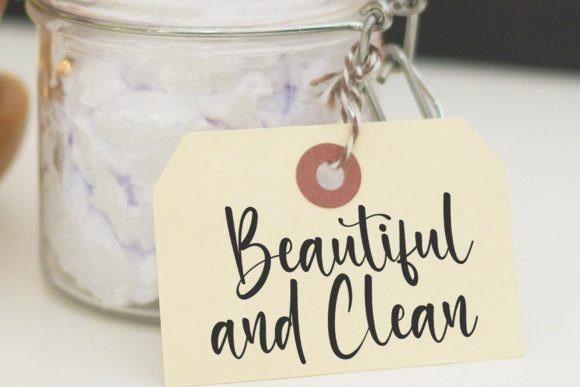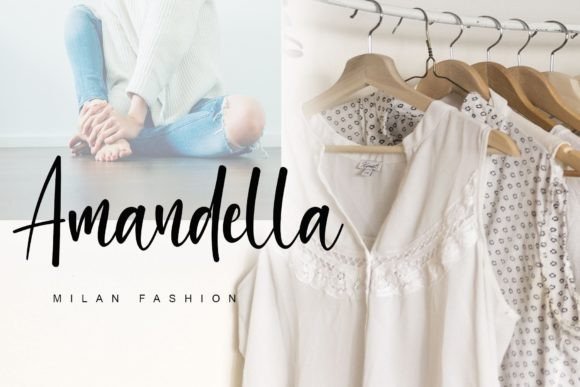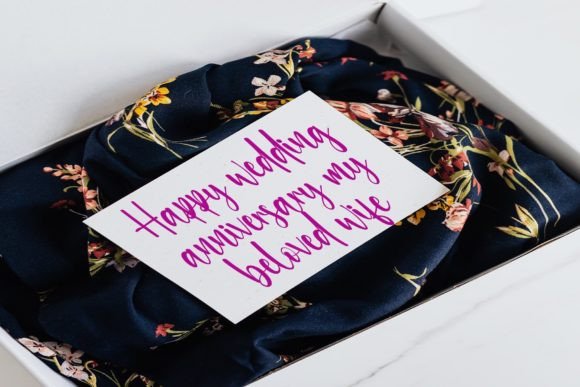
Introduction to Massemy Font
As a designer, you’ve probably found yourself stuck on a project, unable to find the perfect font to bring your creative vision to life. But what if I told you that there’s a font that can elevate your designs to the next level? Introducing the Massemy Font, a stunning handwritten font that combines timeless classic calligraphy with a modern twist.
Imagine having a design resource that not only adds a touch of elegance to your projects but also provides a high-quality, versatile font that can be used across various mediums. With the Massemy Font, you can achieve just that. Its impeccable form and balanced design make it the perfect addition to any creative project, whether you’re working on a logo, brochure, or website.
Key Features of Massemy Font
- High-quality design with a unique, creative style suitable for various design projects.
- Includes a wide range of characters, including uppercase and lowercase letters, numbers, and special symbols.
- Designed with high-resolution clarity, suitable for use in print and digital media.
- Perfect for creative projects, such as logos, typography-based art, and editorial design.
Honest Review: Massemy Font
As a designer, I’m always on the lookout for high-quality design resources to elevate my creative projects. Recently, I stumbled upon the Massemy Font, and I’m excited to share my honest review with you.
- Unique design style: The Massemy Font boasts a distinctive and modern aesthetic that’s perfect for creative projects that require a touch of sophistication.
- High-quality characters: The font is well-designed, with clear and crisp characters that are easy to read, even at small sizes.
- Limited language support: The Massemy Font is available in a limited range of languages, which may be a drawback for designers working on international projects.
Overall, the Massemy Font is a solid design resource that’s perfect for creative projects that require a modern and sophisticated look. While it has some limitations, its unique design style and high-quality characters make it a worthwhile addition to any designer’s toolkit.
Tips for Getting the Most Out of Massemy Font
Use the Massemy Font on a transparent background to create a clean and modern design. Experiment with different font sizes and styles to add visual interest to your design. You can also pair the Massemy Font with other design resources to create a unique and creative project.
The Massemy Font is perfect for designers looking for a high-quality, free download font to use in their creative projects. It’s ideal for social media graphics, presentations, documents, and more. With its transparent background and clean design, the Massemy Font is a great addition to any design library.